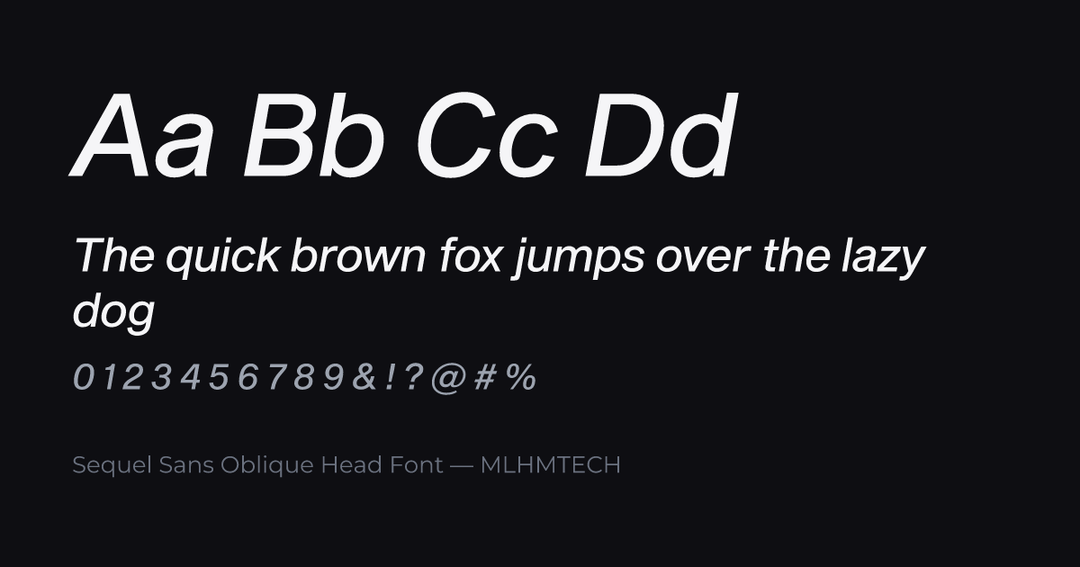
Sequel Sans Oblique Head Font
Sequel Sans Oblique Head is a modern sans-serif font with an oblique style, ideal for headlines and display use.
Sequel Sans Oblique Head is a contemporary sans-serif typeface with a subtle oblique slant, adding a dynamic touch to your designs. Its clean lines and geometric forms make it perfect for headlines, branding, and editorial layouts.
This font is part of the Sequel Sans family, known for its versatility and modern aesthetic. The oblique head variant is specifically designed for impactful display purposes, ensuring your text stands out with style.